Our Handwritten History Bundle 20 fonts at a very deep discount
“Write like they used to” is one of our mottos around herebut exactly when are we talking about? The changing nature of handwriting over the years got us thinking that penmanship and/or history enthusiasts might like to have easy access to an expansive series of historical font styles at the touch of their fingertips.
Our Handwritten History Bundle is a set of 20 authentic script fonts inspired by actual handwriting across the ages, from the hand-done lettering on antique maps, to the script on 18th-century British muster rolls, to the penmanship of famous American men and women, to the dashed-off scrawl of what might be a member of your family or friend. Where else might you find a type collection that‘ll let you write like John Quincy Adamsor the busy waitress at the local pub, depending on your mood?
Terra Ignota (circa 1650), Old Map Fonts Collection.
Antiquarian Scribe (circa 1725), Old Map Fonts Collection.
Remsen Script (circa 1725), Historical Pen Fonts Collection.
Military Scribe (circa 1775), Historical Pen Fonts Collection.
Abigail Adams (circa 1790), Historical Pen Fonts Collection.
Old Man Eloquent Regular (circa 1800), Historical Pen Fonts Collection.
Botanical Scribe (circa 1810), Historical Pen Fonts Collection.
Schooner Script (circa 1820), Historical Pen Fonts Collection.
Texas Hero (circa 1830), Historical Pen Fonts Collection.
Emily Austin (circa 1840), Historical Pen Fonts Collection.
Lamar Pen (circa 1850), Historical Pen Fonts Collection.
Houston Pen (circa 1860), Historical Pen Fonts Collection.
Douglass Pen (circa 1875), Historical Pen Fonts Collection.
Professor (circa 1950), Modern Handwritten Fonts.
Pumpkinseed Heavy (circa 1975), Modern Handwritten Fonts.
Cedar Street (circa 1985), Modern Handwritten Fonts.
|
Marydale Bold (circa 1990), Modern Handwritten Fonts.
|
Treefrog (circa 1995), Offbeat Collection.
|
Oak Street (circa 2000), Modern Handwritten Fonts.
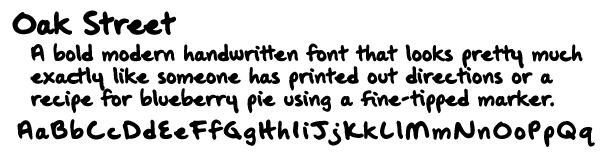 |
|
Viktorie (circa 2010), Modern Handwritten Fonts.